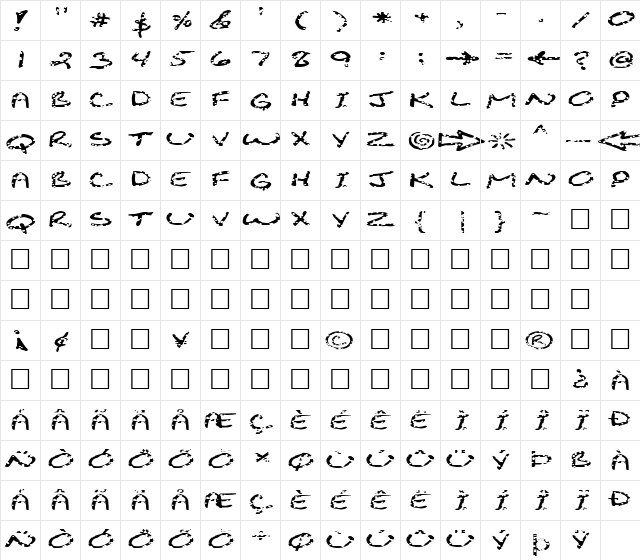
FZ JAZZY 29 HOLEY EX Bold Font Preview
FZ JAZZY 29 HOLEY EX Bold
Design Context for FZ JAZZY 29 HOLEY EX Typeface
FZ JAZZY 29 HOLEY EX is a composed and adaptable typeface that performs quietly and consistently across a wide range of design contexts. Its bold stroke weight gives it real presence on the page.